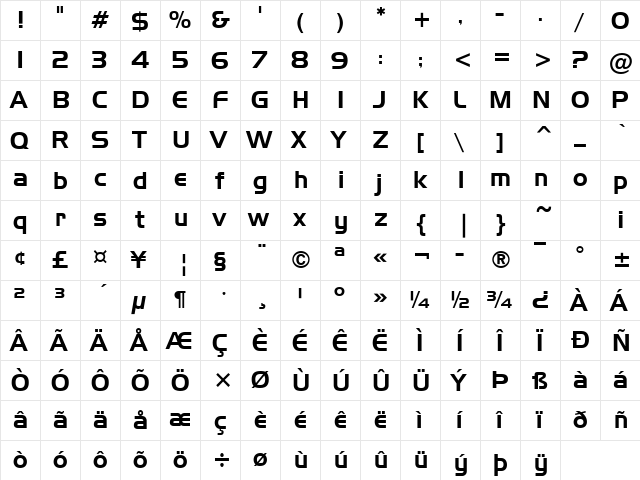
Liberal Bold
Design Context for Liberal Typeface
Liberal is a composed and adaptable typeface that performs quietly and consistently across a wide range of design contexts. Its bold stroke weight gives it real presence on the page.